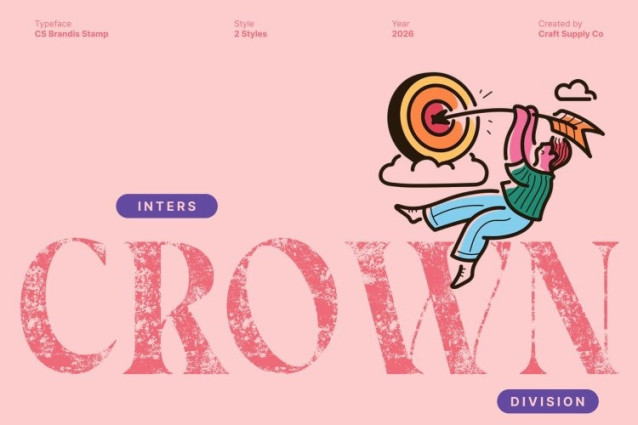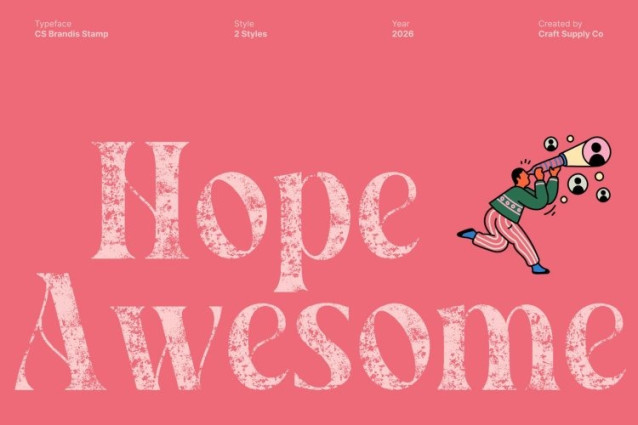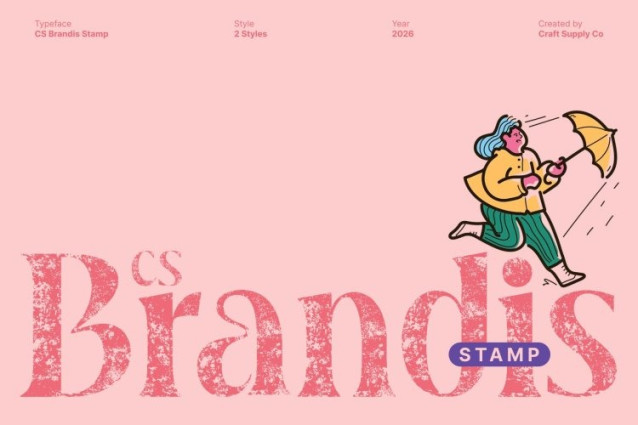
CS Brandis Stamp Font
CS Brandis Stamp Font This is a modern serif font crafted to express elegance through timeless proportions and contemporary refinement, enriched with a distinctive stamp texture. Its carefully designed letterforms balance classic serif foundations with a fashionable modern attitude, while the stamped finish introduces artistic depth and subtle vintage character. The result is a typeface that feels confident, expressive, and luxuriously refined.
High Contrast with Textured Personality
The font’s defining high-contrast strokes bring drama and visual rhythm to each letter. Enhanced by playful modern shapes and a stamped surface, the design gains warmth and personality without losing sophistication. The textured details add a handcrafted, print-inspired feel that elevates the overall aesthetic.
Contemporary Style with Timeless Charm
Blending contemporary design sensibilities with elegant detailing, this font achieves a balance between modern freshness and classic beauty. Its refined curves, sharp transitions, and aged texture create a dynamic yet graceful flow that feels stylish, artistic, and enduring.
Perfect for Fashion, Editorial, and Premium Branding
Ideal for fashion branding, editorials, posters, packaging, and luxury visual identities, excels in headlines, titles, and statement typography. Its fusion of high-contrast elegance and vintage stamp texture enhances fashion campaigns and magazine layouts with a confident, aesthetic, and sophisticated presence.